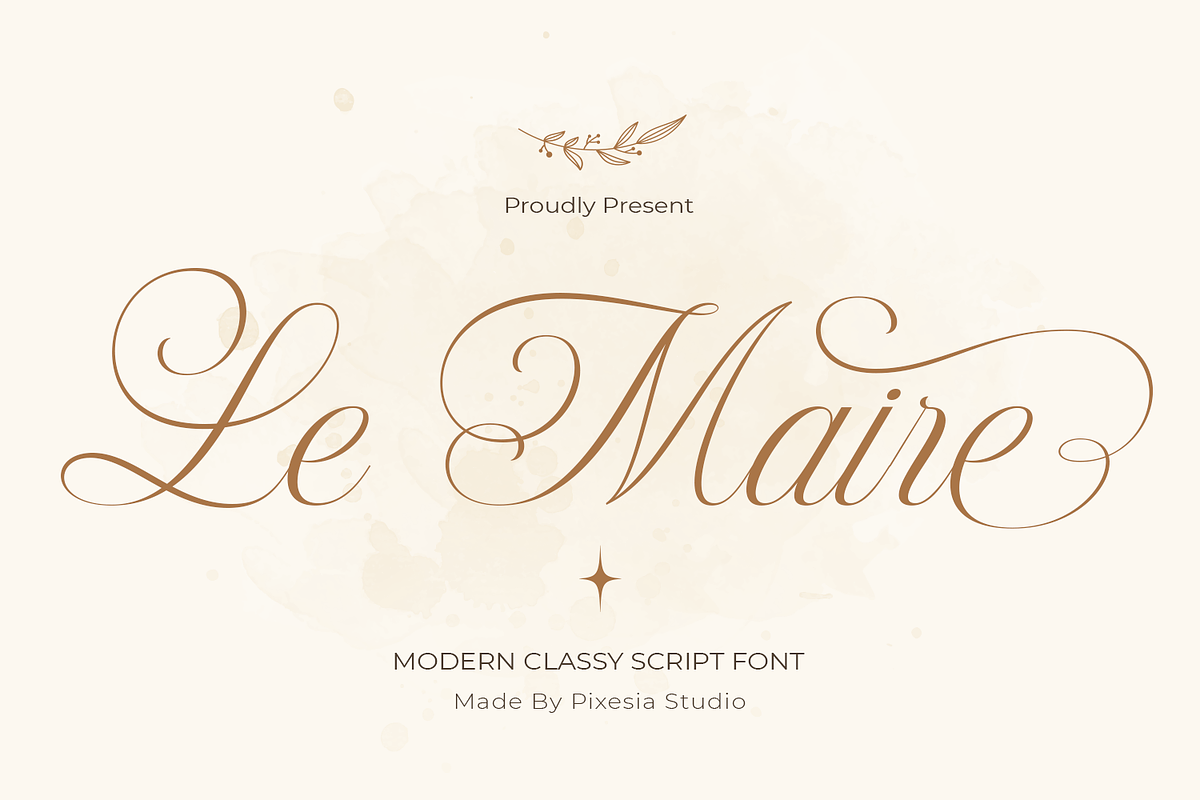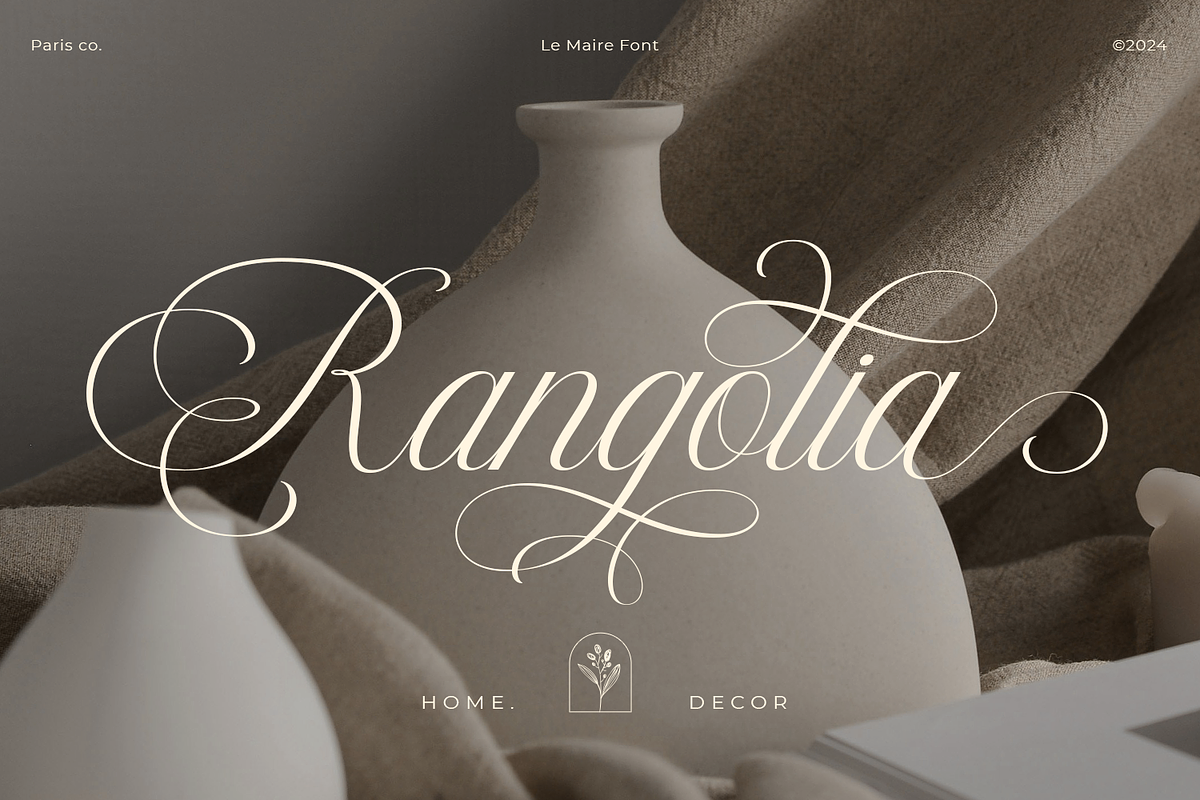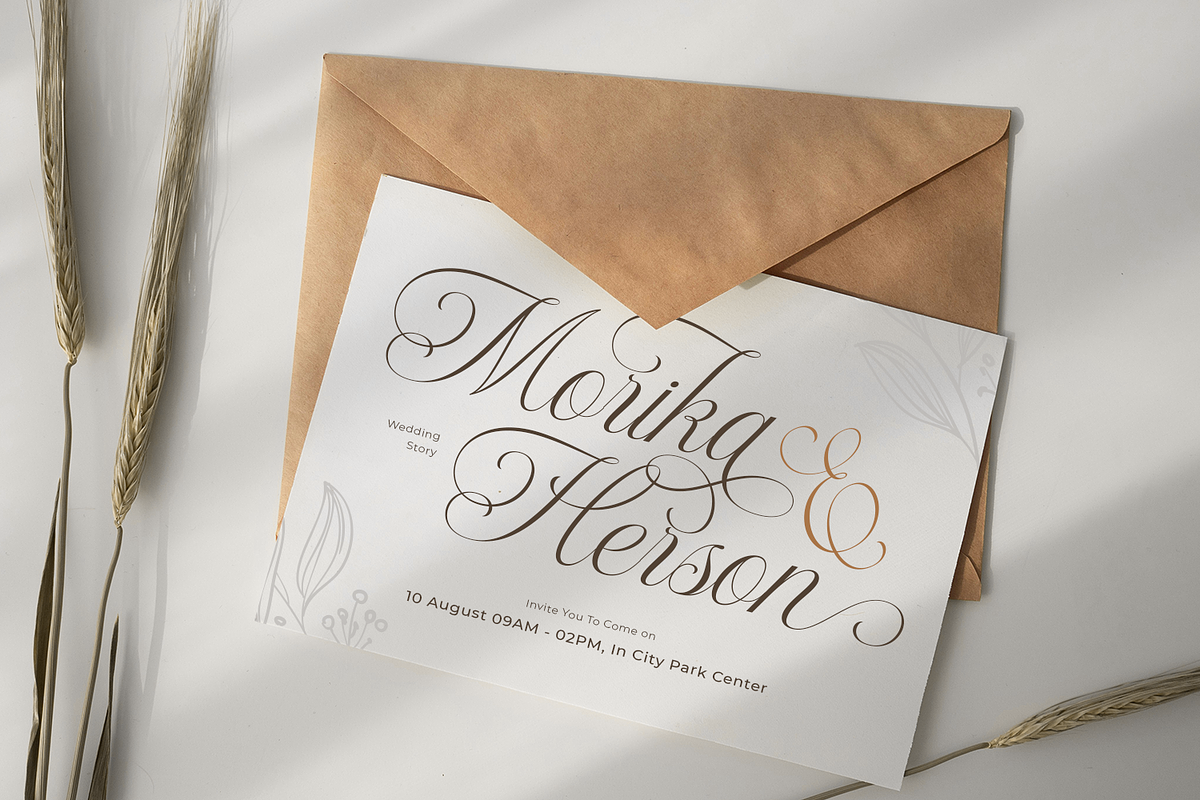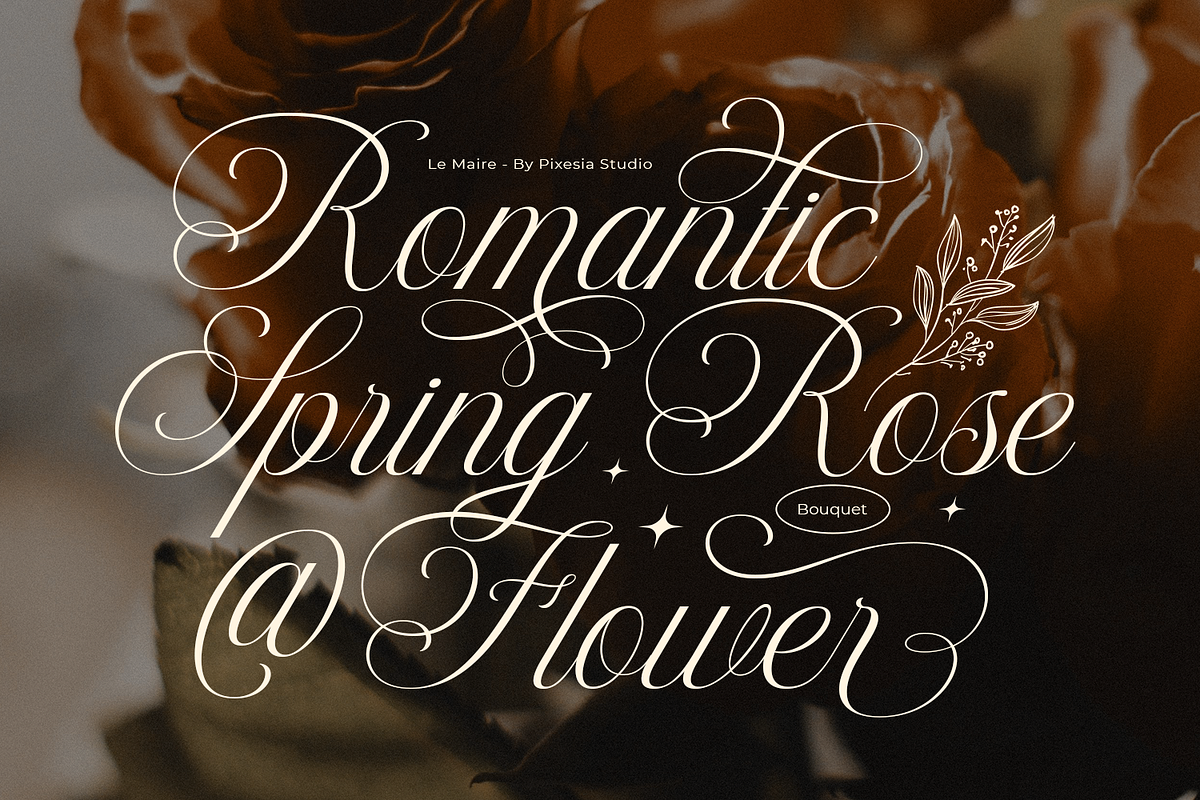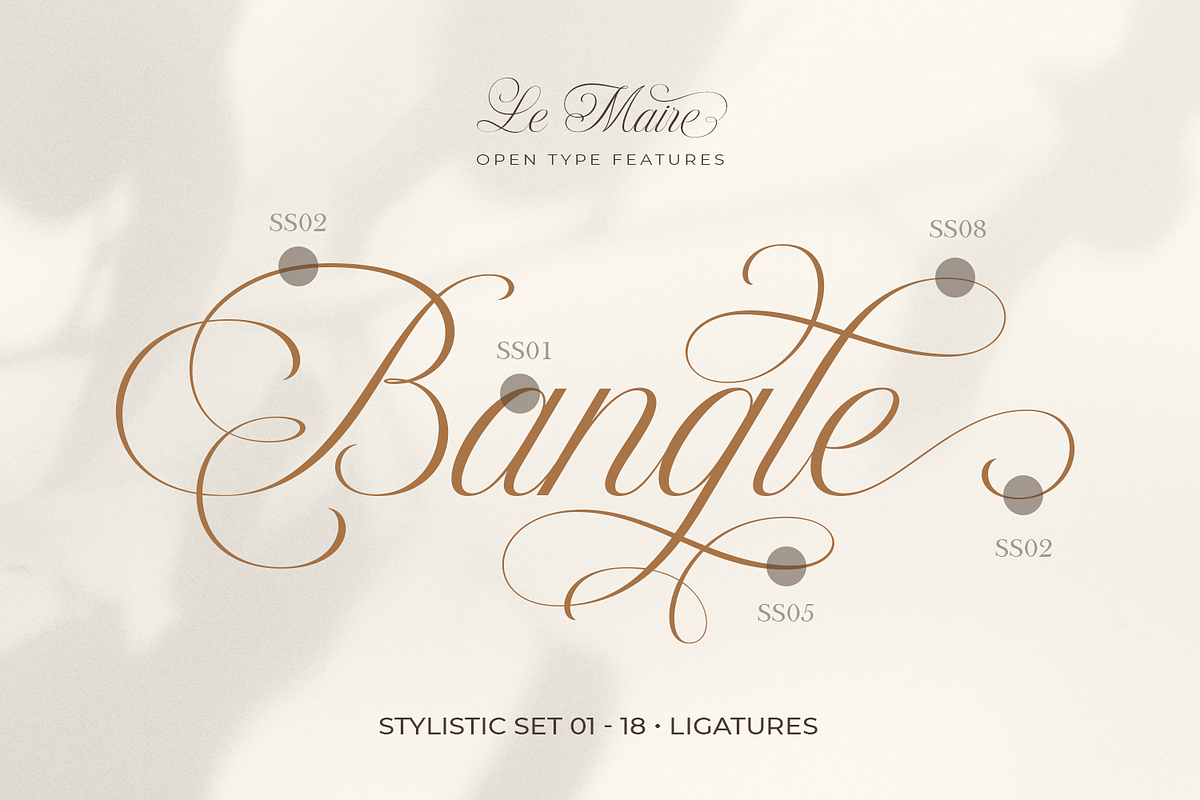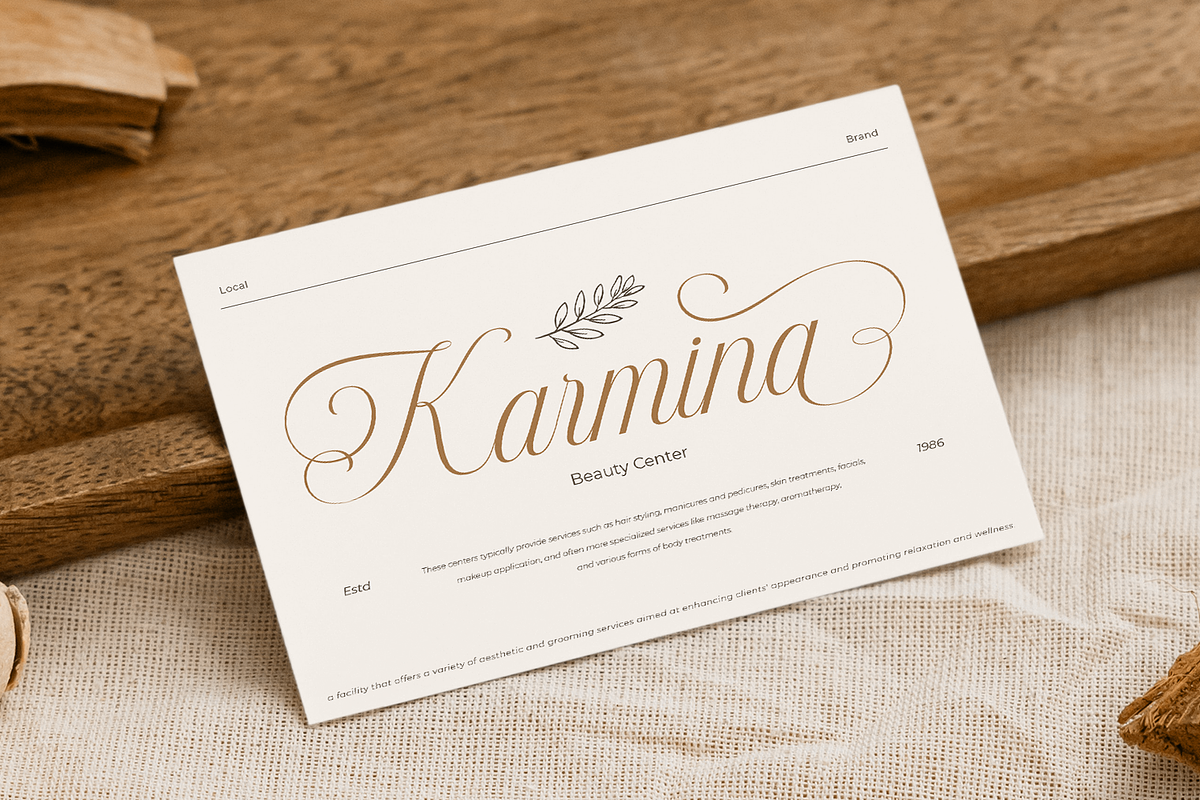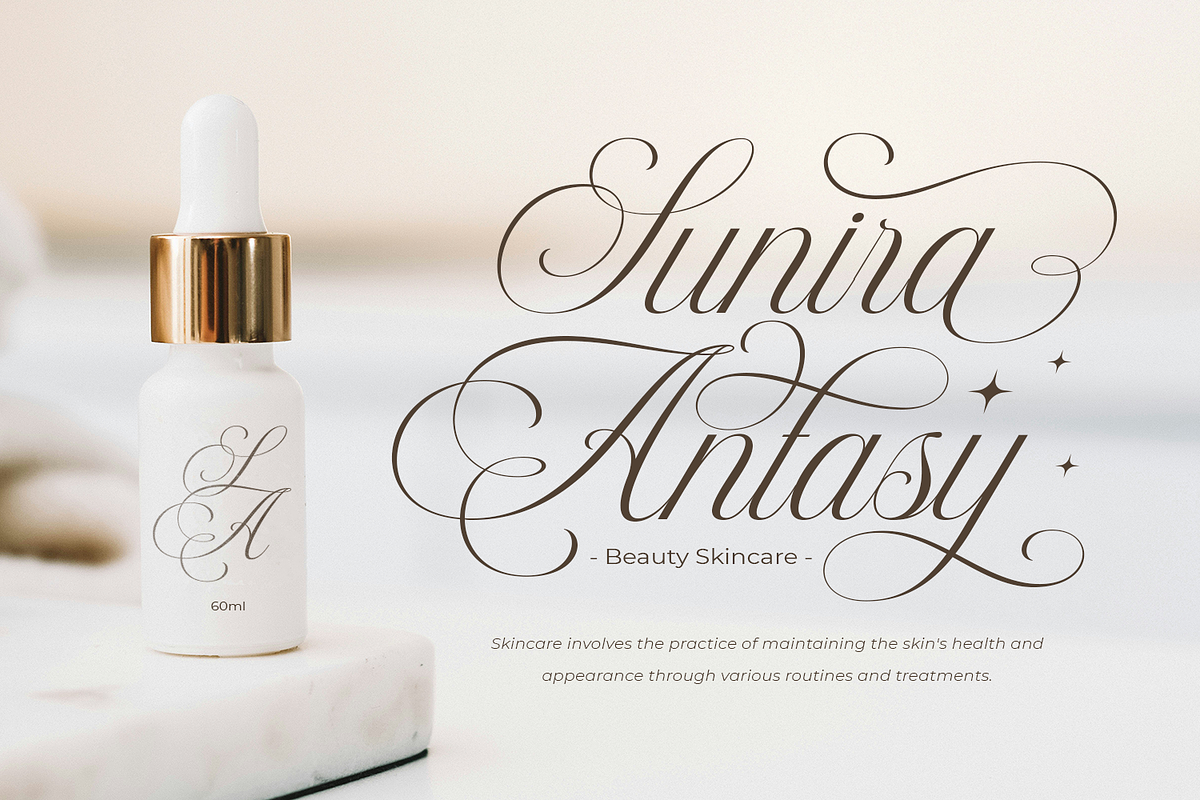
Le Maire - Modern Cursive Script
Introducing Le Maire - Modern Cursive Script Font
Le Maire is a modern cursive script font inspired by classical calligraphy. Crafted with thin consistent strokes, this beautiful script font evokes a sense of minimalist, luxurious and classy.
Le Maire is perfectly suited for branding, logotypes, tshirt design, quotes, labels, social media posts, advertisements, product packaging, product designs, label, poster, photography, watermark, invitation, t-shirt design, stationery and any projects that demand classic with modern style.